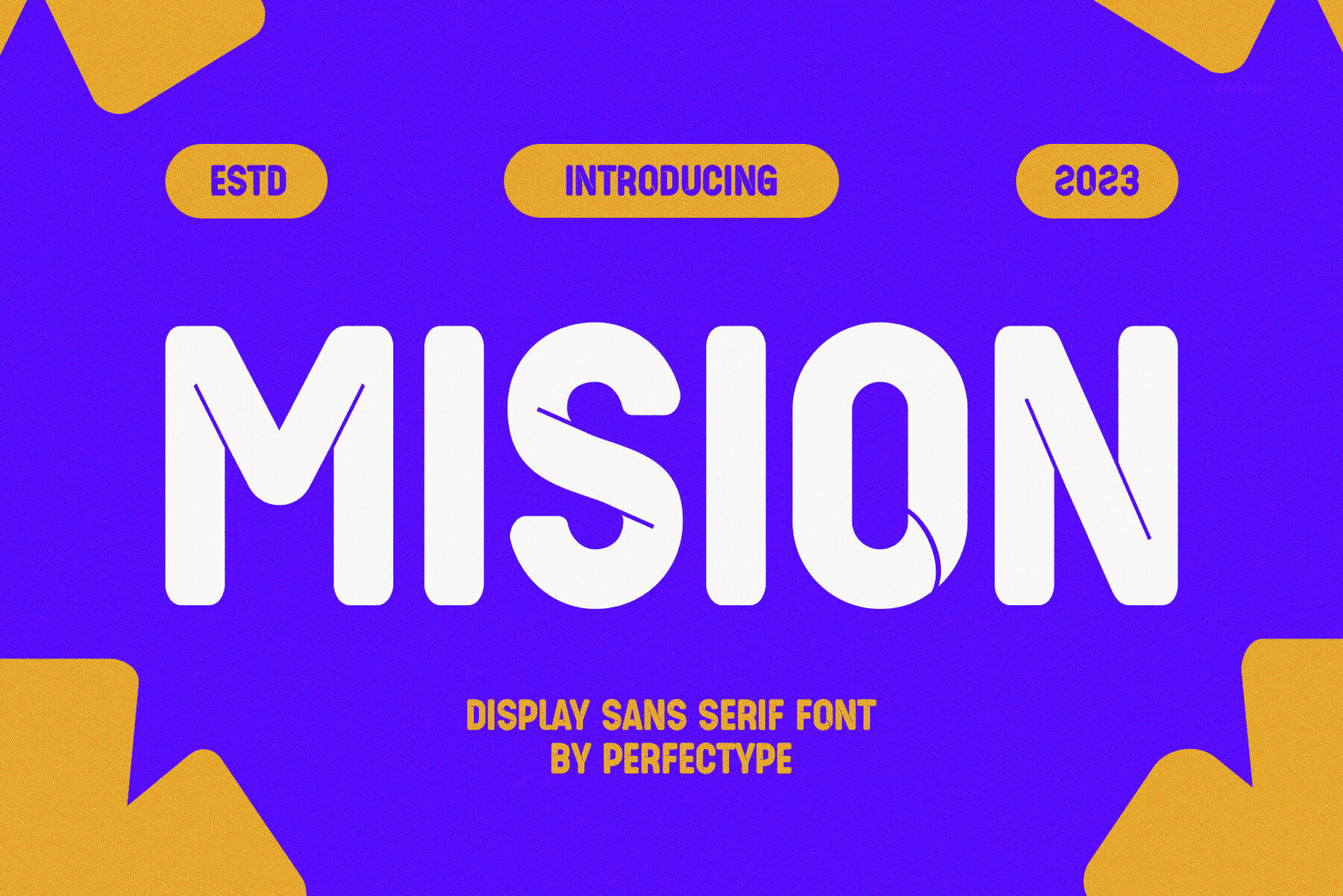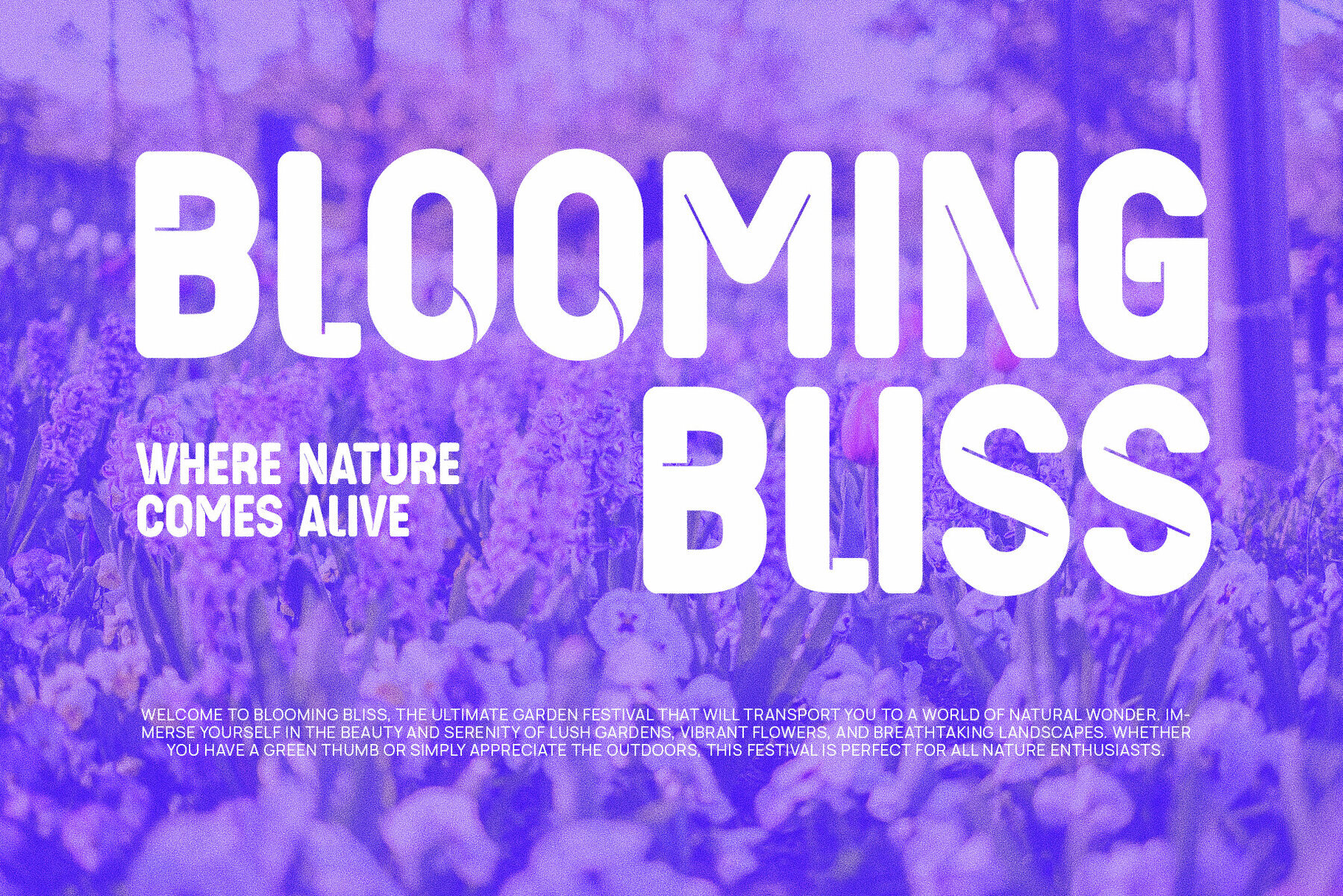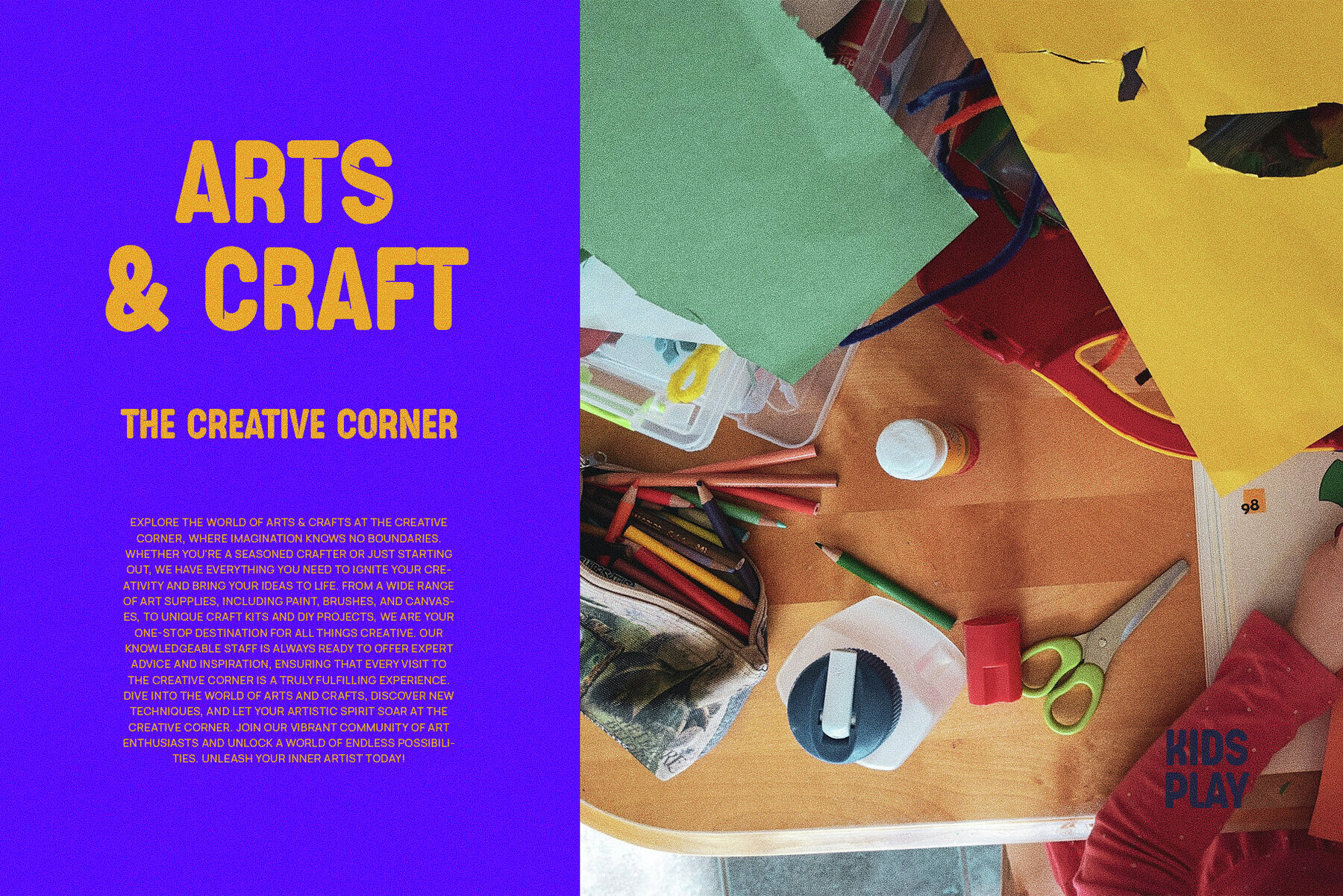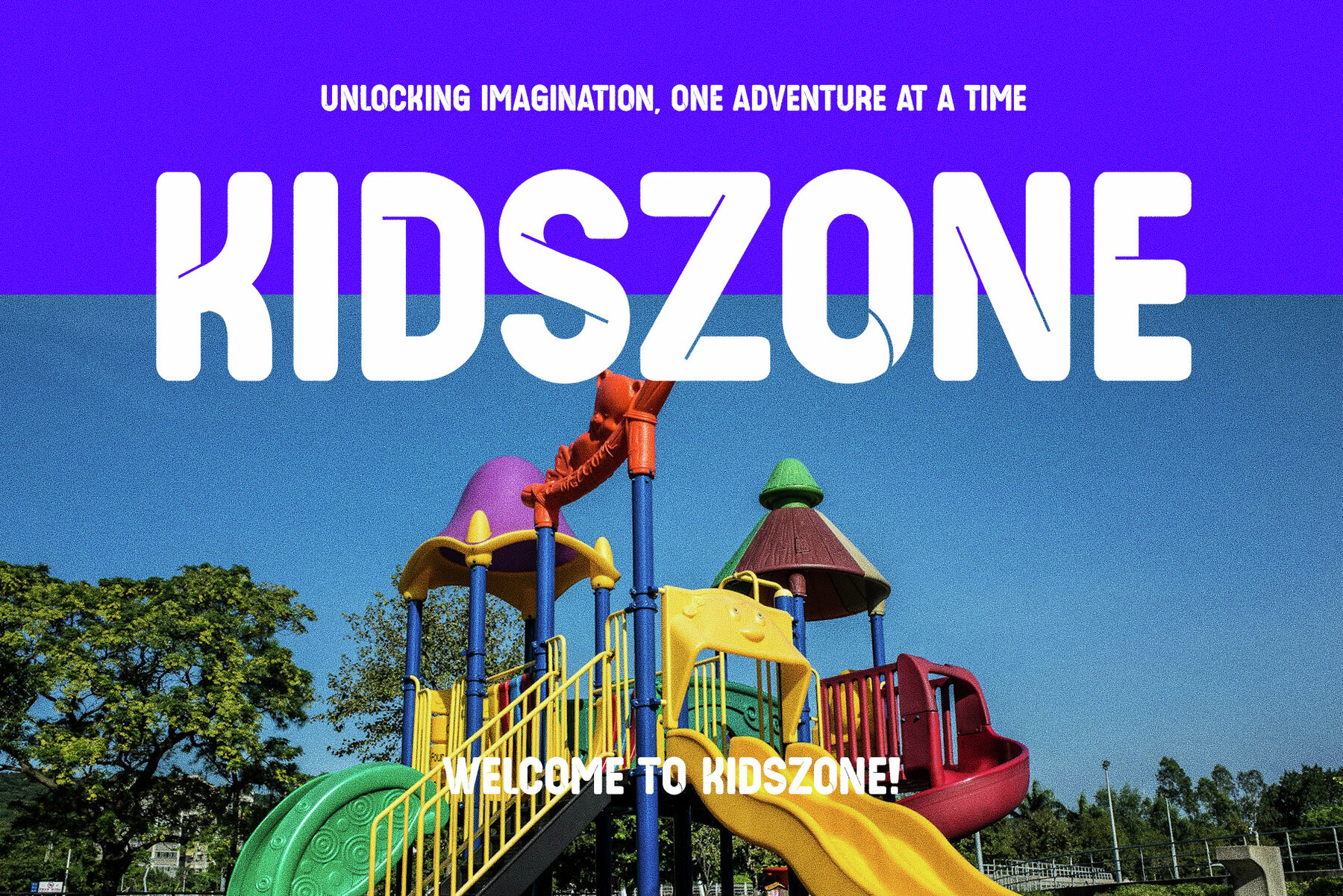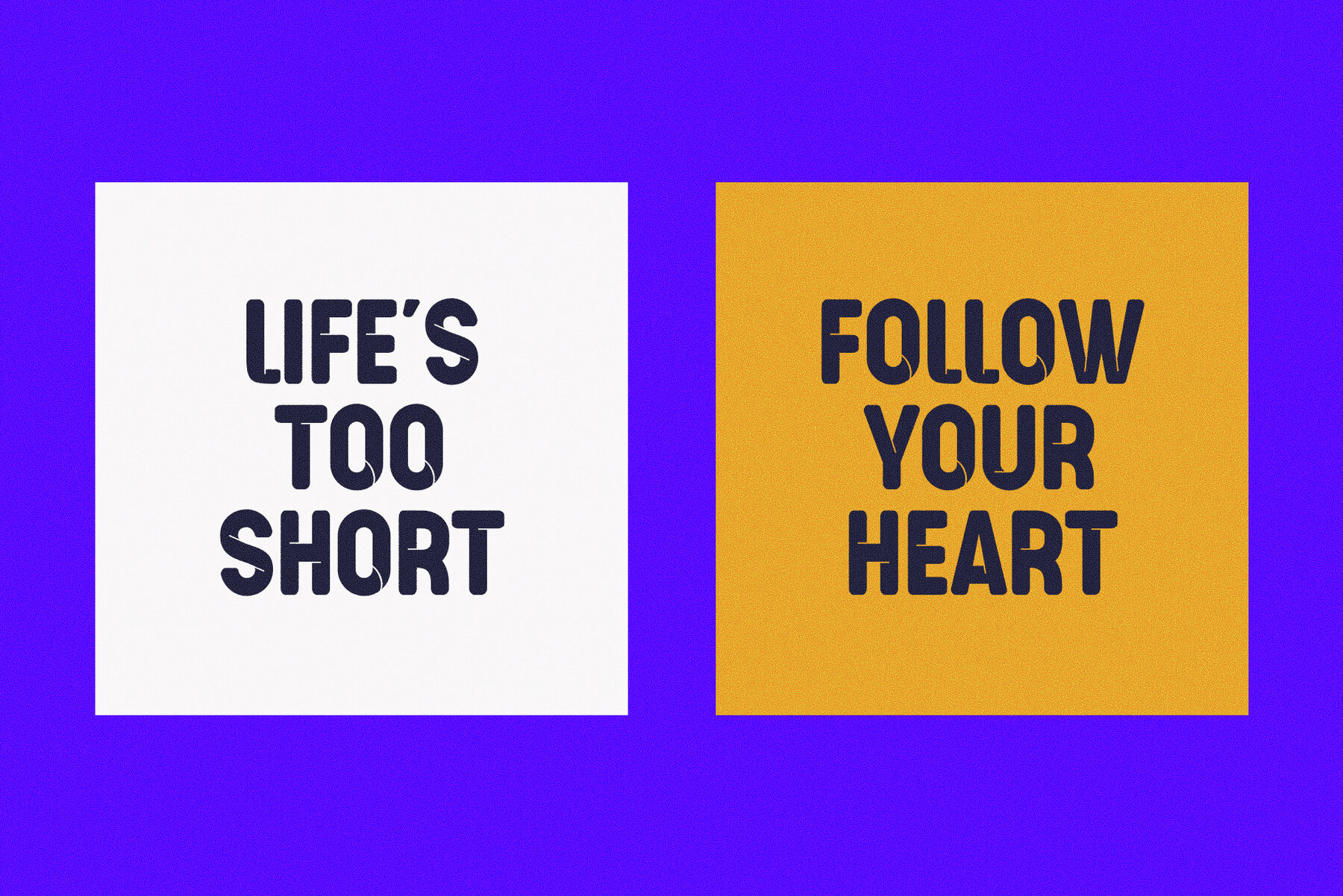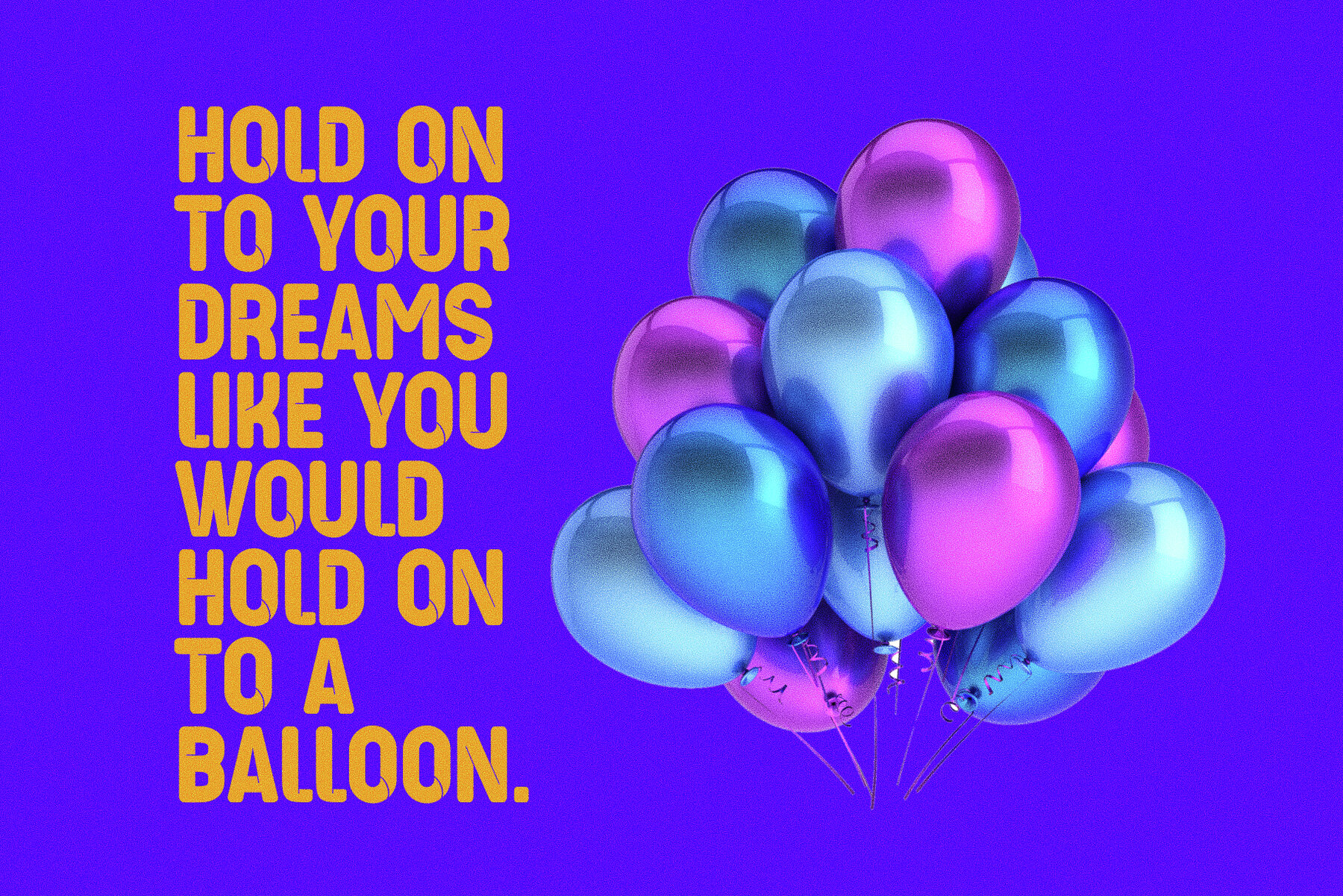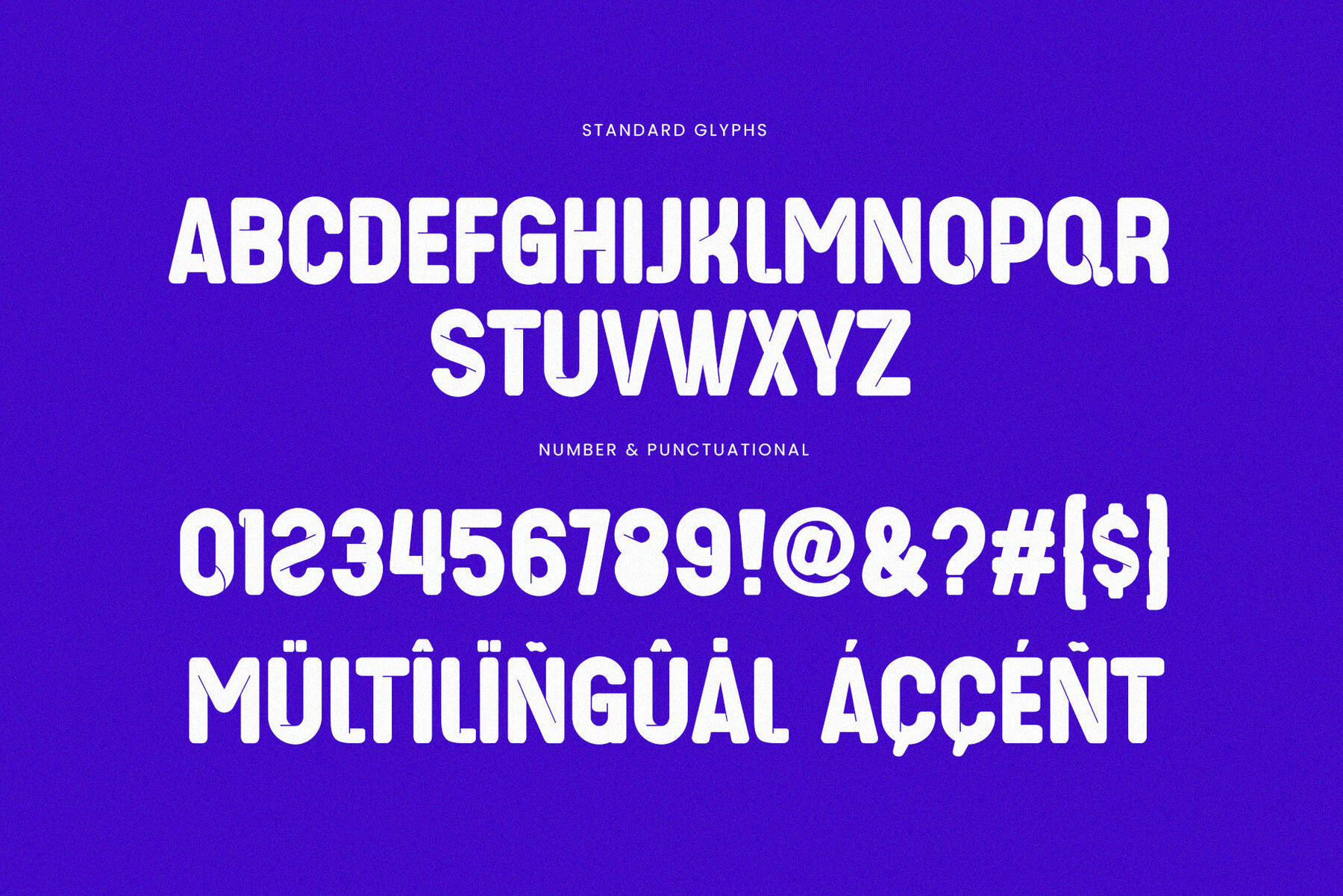
Mision Font
Mision Regular
This is a sans serif font. This font was created with balance and high readability. In making it, we prioritize neatness and a detailed philosophy, so that this font is good to use for all your branding needs. This font is intended for any graphic design purposes such as brochures, videos, advertising brands, logos, magazines, layout designs, posters, post templates, games, and others. What's Included: